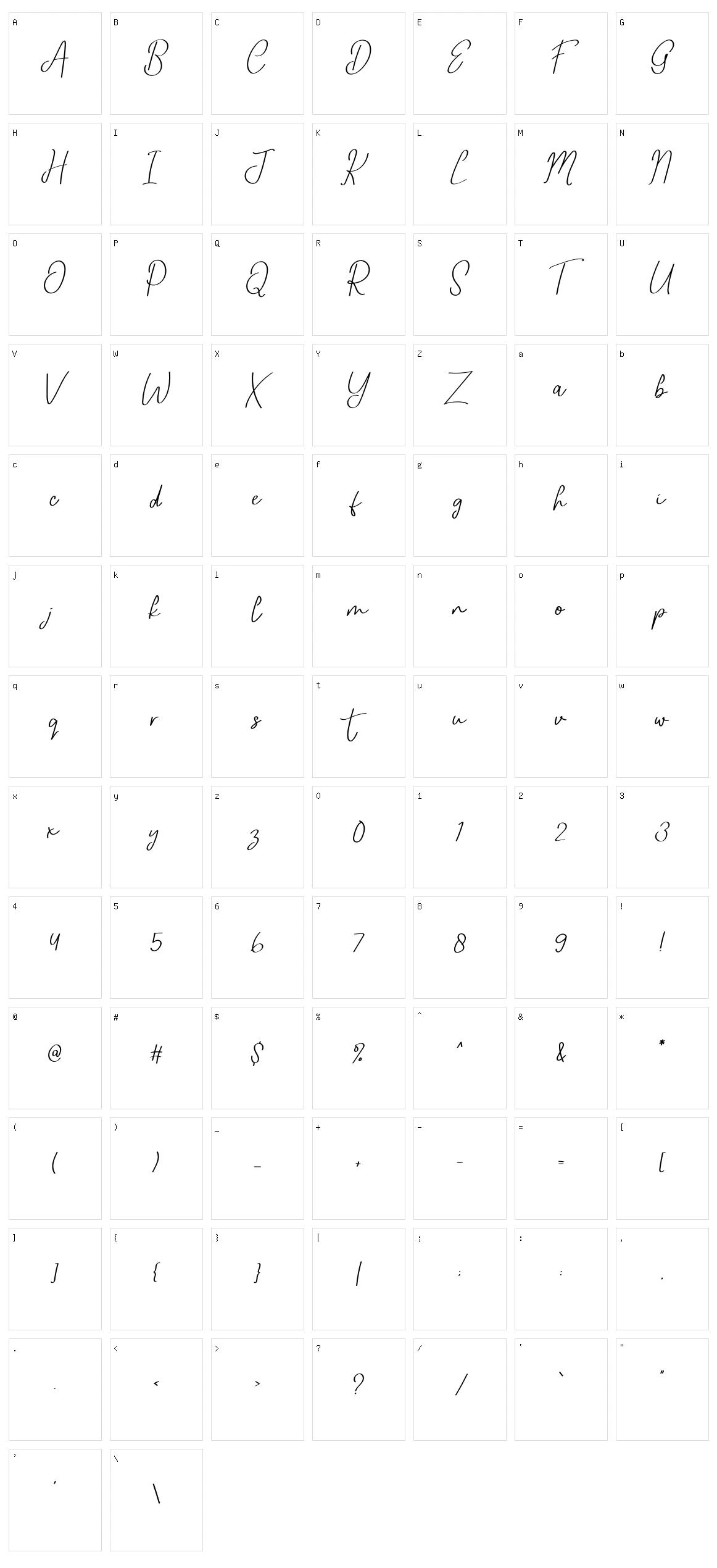
The free font Vintage Aesthetic is carefully designed by Erik Studio, showcasing a thoughtful balance of creativity and usability and falls under the Script font style. When you download the ZIP file, it contains only 83.71 KB of font files, making it lightweight and quick to download. Please review the license details below to understand permitted usage and distribution rights. If license information is not available, we recommend using this font for personal projects only or contacting the author directly for commercial usage permissions.